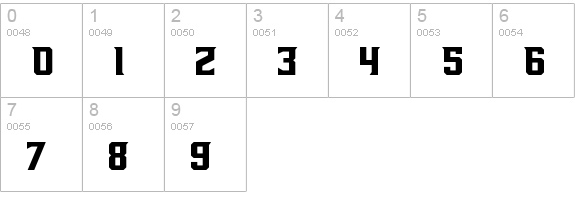
Richardson Brand United is a striking and versatile font that effortlessly combines modernity with timeless elegance. With its clean lines and sharp edges, this font exudes a sense of professionalism and sophistication, making it the perfect choice for a wide range of design projects. The unique design of Richardson Brand United allows it to stand out from the crowd, making a bold statement while remaining highly legible. Whether it is used in branding, advertising, or any other form of communication, this font draws attention and leaves a lasting impression. One of the most remarkable aspects of Richardson Brand United is that it is available for free. Yes, you read that right! This exceptional font can be freely downloaded from FontsMarket.com, a trusted source for high-quality fonts. Now, you can elevate your designs without breaking the bank. The free availability of Richardson Brand United makes it accessible to designers, creatives, and enthusiasts alike, allowing them to experiment and explore its vast possibilities. Its versatility is unmatched, as it seamlessly adapts to various design styles and themes, offering endless creative potential. Whether you are working on a logo, a website, a poster, or any other design project, Richardson Brand United is sure to make an impact. Its clean and contemporary aesthetic, combined with its effortless readability, ensures that your message will be conveyed with clarity and style. Download Richardson Brand United today from FontsMarket.com and unlock the power of this remarkable font. Stand out from the crowd, captivate your audience, and bring your design visions to life with this exceptional typeface. Don't miss out on the opportunity to enhance your designs with this free and extraordinary font.